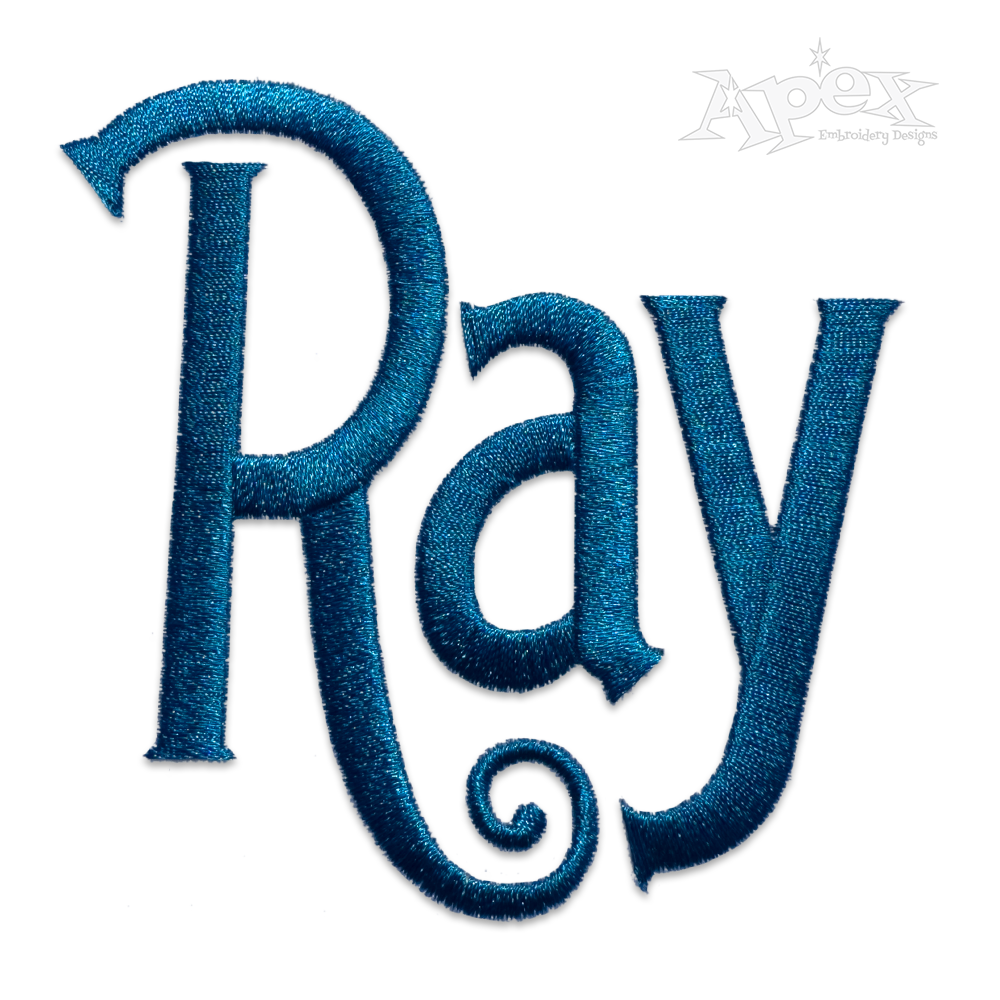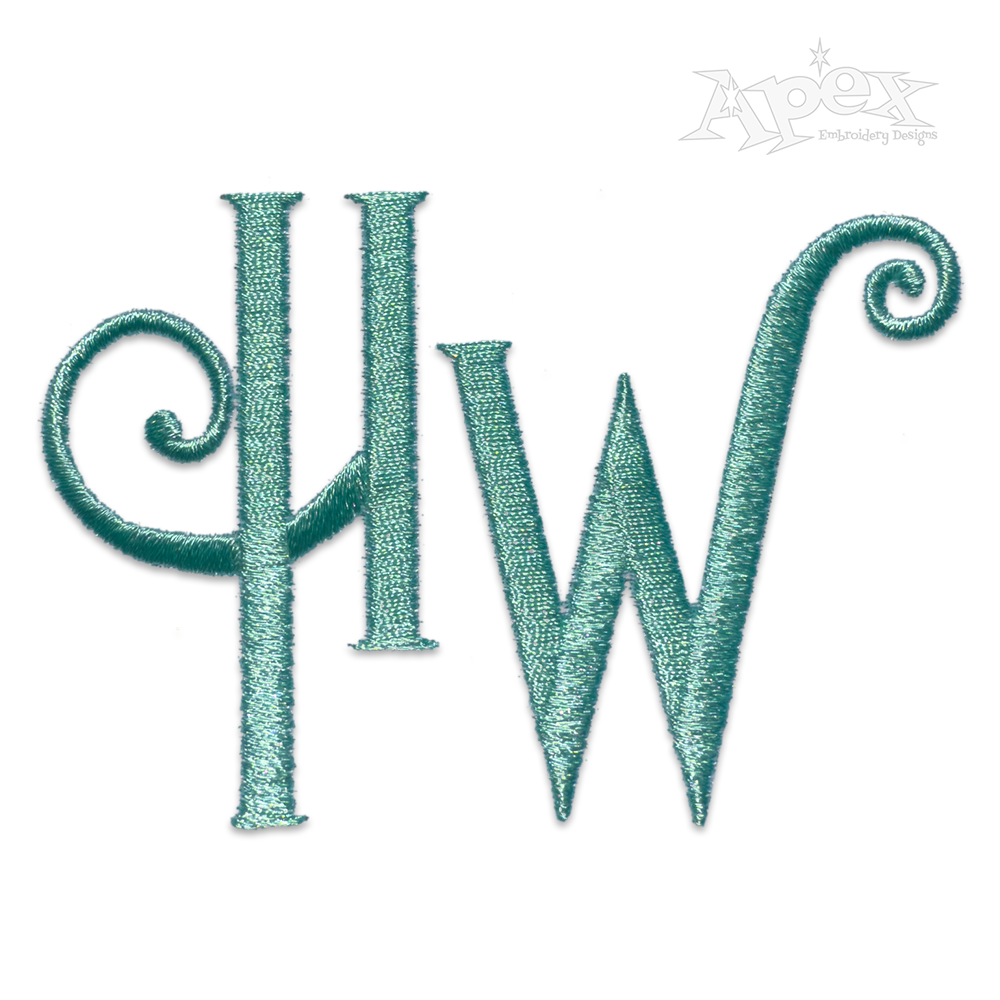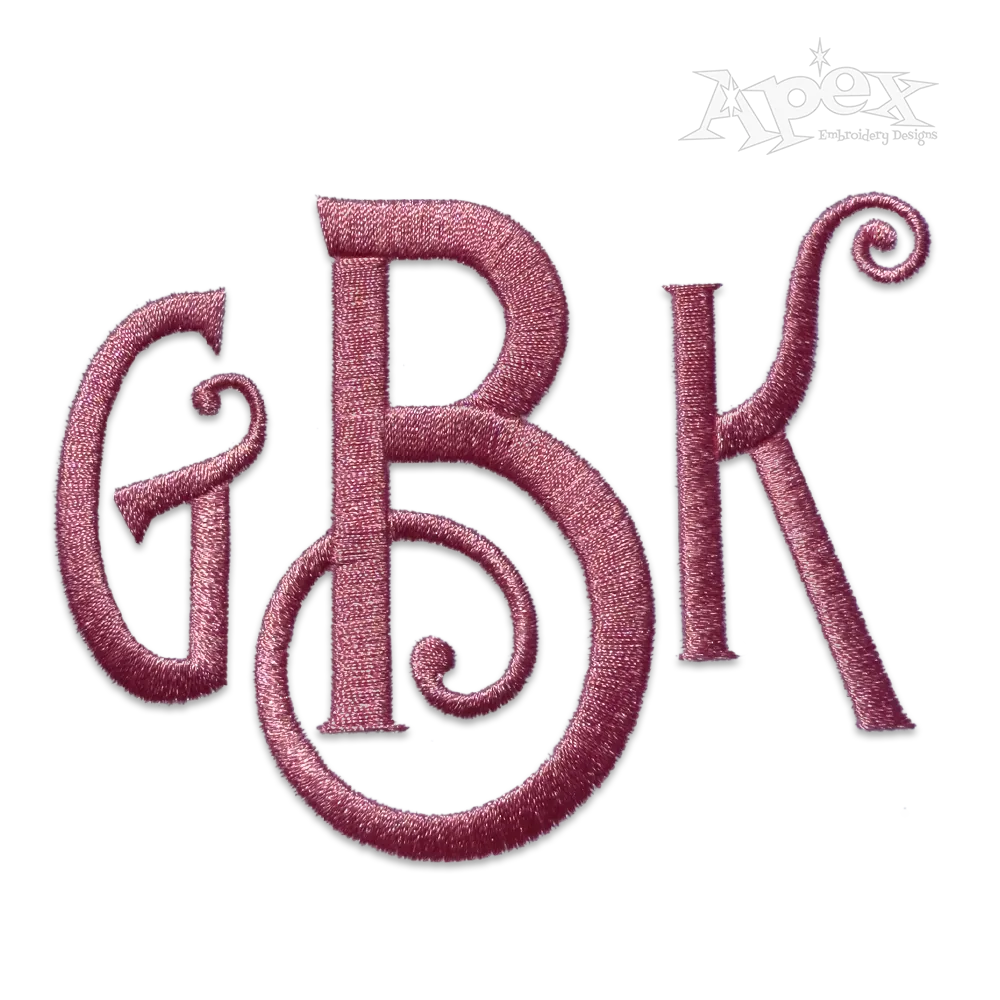
Old Timers Embroidery Font
Stepping up to a gleaming chrome counter, listening to the hum of a vintage jukebox, and watching handcrafted malteds spun to perfection—the Old Timers Embroidery Font captures the unmistakable warmth and spirited charm of mid-century Americana. Digitized with deliberate care to honor classic soda shop signage and retro hand-lettering, this typeface radiates personality through every arch, loop, and tail. Whether crafting a heirloom piece with a tongue-in-cheek nostalgic nod or personalizing durable utility apparel, each letter sews out with rich, dimensional satin columns that bring vintage sign-painter flair directly to your embroidery hoop.
Project Ideas for Old Timers Embroidery Font
The buoyant, retro-inspired aesthetic of Old Timers lends itself to a broad range of creative, vintage-infused textiles:
- Retro Diner Kitchen Linens: Embroider playful cafe phrases or family names across heavy linen tea towels, striped half-aprons, and bread baskets for a nostalgic kitchen atmosphere.
- Bespoke Workwear & Bowling Shirts: Bring authentic mid-century garage or team flair to gabardine shirts, mechanics' jackets, and denim vests using crisp left-chest nameplates.
- Personalized Canvas Market Totes: Stitch bold, high-contrast family names or vintage grocery slogans onto heavy canvas market bags and duffels.
- Cozy Loungewear & Heritage Gifting: Personalize vintage-wash sweatshirts, fleece robes, and picnic blankets for timeless, custom-tailored gifts.
- Cocktail Bar Essentials: Monogram classic bar towels, canvas beverage caddies, and cocktail napkins for home speakeasies or vintage-themed entertaining.
Achieving authentic vintage balance depends on thoughtful placement tailored to garment construction and lettering scale:
- Left Chest Monograms: Position the 2-inch lettering 7 to 9 inches down from the shoulder seam and 3 to 4 inches over from the center placket on shirts and jackets for classic uniform styling.
- Apron Bibs & Center Chest: Center the 3-inch lettering across the upper chest plane, providing a balanced, readable focal point on heavy aprons, sweatshirts, or tote pockets.
- Denim Back Yokes: Form gently arched or straight text across the upper shoulder span of denim jackets or overshirts using the 3-inch uppercase and lowercase glyphs.
- Textile Borders & Flaps: Align words horizontally parallel to hems on table runners, tea towels, and pillow wraps to echo traditional mid-century chain-stitched linens.
Old Timers Embroidery Font Craft & Letterform Details
Capturing the organic flow of vintage soda fountain script requires far more than automated conversion; it demands meticulous artisanal digitizing. The Old Timers letterforms feature generous, sweeping curves balanced by smooth, tapered terminal serifs and friendly teardrop counters. Each letter is engineered with carefully calculated directional stitching that guides the thread around every bend, catching ambient light to produce a glossy, liquid sheen across the satin surface.
Beneath the visible embroidery lies an extensive network of specialized foundation underlay—featuring perpendicular traveling stitches and contour edge support designed to lock down fibers and counter fabric push-and-pull. This meticulous structural planning ensures crisp letter edges, clean baseline alignment, and uniform column widths, whether you are stitching through robust denim, structured duck canvas, or soft terry toweling. The result is a delightfully durable, beautifully raised stitch-out that stands as a true testament to the golden era of classic typography.